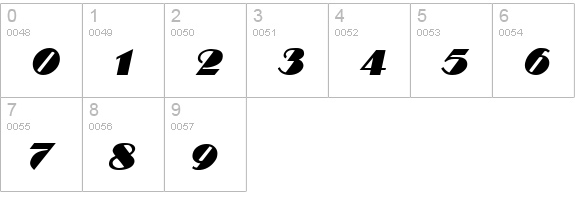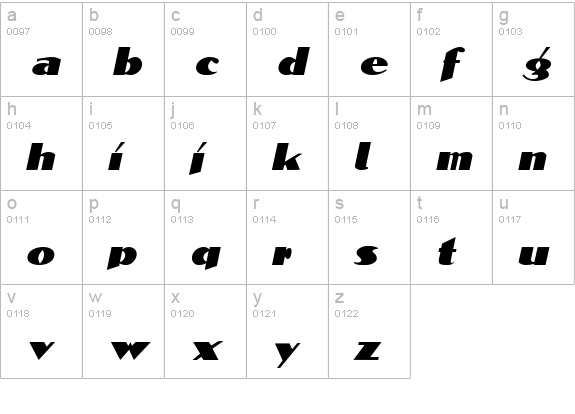
BlockCalligraphy Italic Font Details
BlockCalligraphy Italic is a distinctive, italic variant in the BlockCalligraphy typeface family \xE2\x80\x94 well suited to design and typography projects.
BlockCalligraphy Italic font is a stunning display typeface that combines the elegance of traditional calligraphy with a modern, bold twist. Its italic style adds a dynamic and artistic touch to any design project, making it perfect for branding, invitations, posters, and more. What sets BlockCalligraphy Italic font apart is its unique block-like structure that gives a contemporary feel while still maintaining the graceful curves and flourishes of calligraphy. The contrast between thick and thin strokes creates a beautiful rhythm and flow that draws the eye in. Best of all, BlockCalligraphy Italic font is available for free download at FontsMarket.com. Whether you're a designer looking to add a touch of sophistication to your work or a hobbyist exploring new typefaces, BlockCalligraphy Italic font is a versatile and stylish choice that won't cost you a penny. Download it today and start creating stunning designs with this eye-catching typeface.